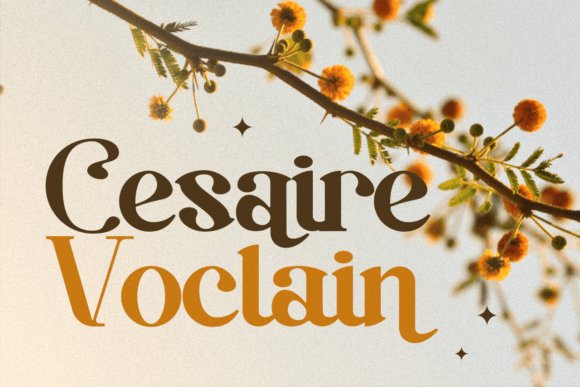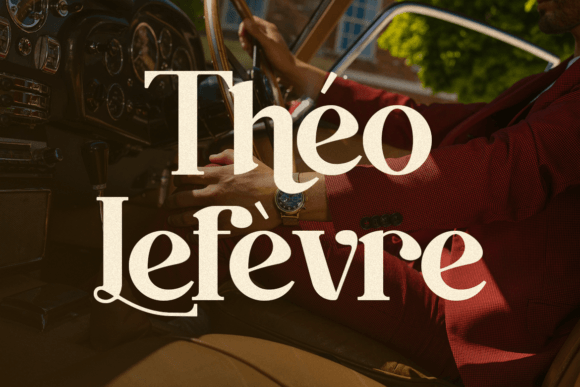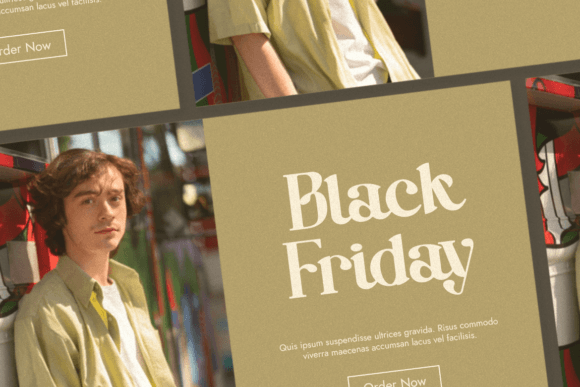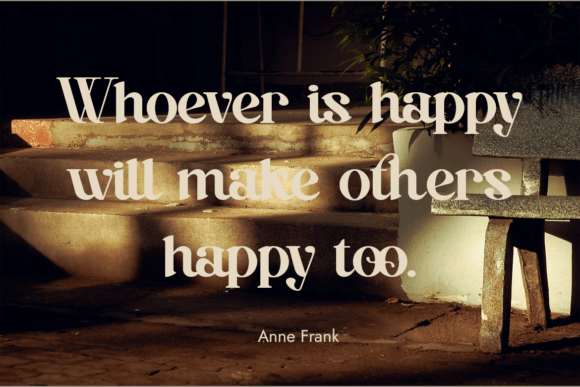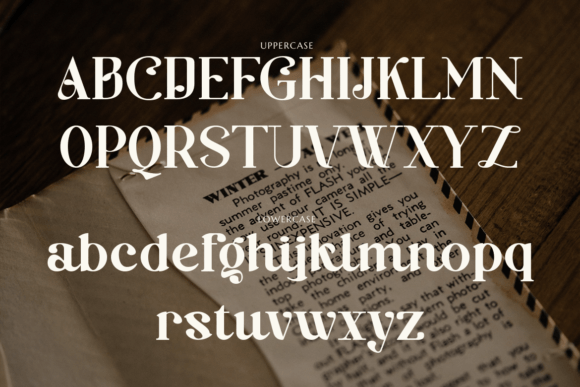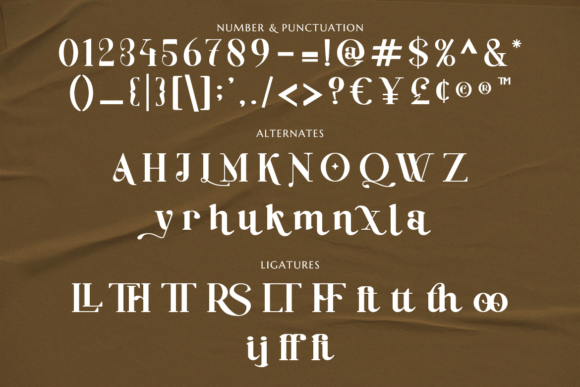
Discover the Versatility of Baginks Font: Elevate Your Designs with a Bold, Playful, and Elegant Typeface
In the world of typography, finding the perfect font that combines boldness, playfulness, and elegance can be a daunting task. However, if you’re looking for a typeface that can effortlessly shift between serious and fun, look no further than Baginks Font. This versatile font is designed to cater to a wide range of design needs, making it an excellent addition to any designer’s toolkit.
Introducing Baginks: A Combination of Bold, Playful, and Fun
Baginks Font is a unique blend of bold, playful, and fun elements, making it an ideal choice for various design projects. Whether you’re working on a branding project, logo design, wedding invitation, or social media post, Baginks can adapt to any tone or style. Its elegant vibe allows it to be used in more serious and formal designs, while its playful side makes it perfect for fun and casual occasions.
Endless Design Possibilities with Baginks
One of the standout features of Baginks Font is its incredible versatility. Here are some design projects where Baginks can make a significant impact:
- Branding Projects: Establish a strong brand identity with Baginks’ bold and playful style.
- Logos: Create a memorable logo that stands out from the crowd.
- Wedding Designs: Add a touch of elegance and whimsy to wedding invitations, decorations, and more.
- Social Media Posts: Engage your audience with eye-catching social media graphics.
- Advertisements: Grab attention with bold and playful ad designs.
- Product Packaging: Make your product stand out on store shelves with unique packaging designs.
- Product Designs: Add a personal touch to your products with custom designs.
- Labels: Create custom labels for products, gifts, or more.
- Photography: Add a watermark or overlay text to your photos with Baginks’ elegant style.
- Invitations: Design beautiful and unique invitations for any occasion.
- Stationery: Elevate your stationery designs with a touch of elegance and playfulness.
The Power of PUA Encoding: Easy Access to Glyphs and Ligatures
Baginks Font is PUA (Private Use Area) encoded, which means you can easily access all the amazing glyphs and ligatures. This feature makes it simple to get creative with your designs, without the need for complicated font editing software. With Baginks, you can:
- Access a wide range of glyphs and ligatures
- Experiment with different design combinations
- Save time and effort in your design process
Why Choose Baginks Font?
With so many fonts available, why choose Baginks? Here are a few reasons why designers and crafters love Baginks:
- Versatility: Use Baginks for a wide range of design projects, from formal to informal.
- Elegance: Add a touch of sophistication to your designs with Baginks’ elegant style.
- Playfulness: Inject fun and playfulness into your designs with Baginks’ bold and whimsical style.
- Easy to Use: PUA encoding makes it simple to access glyphs and ligatures.
Baginks Font is a game-changer for designers and crafters looking for a versatile, elegant, and playful typeface. With its bold style, PUA encoding, and endless design possibilities, Baginks is the perfect addition to any design project. Whether you’re working on a branding project, wedding design, or social media post, Baginks Font is sure to elevate your designs and make them stand out from the crowd.